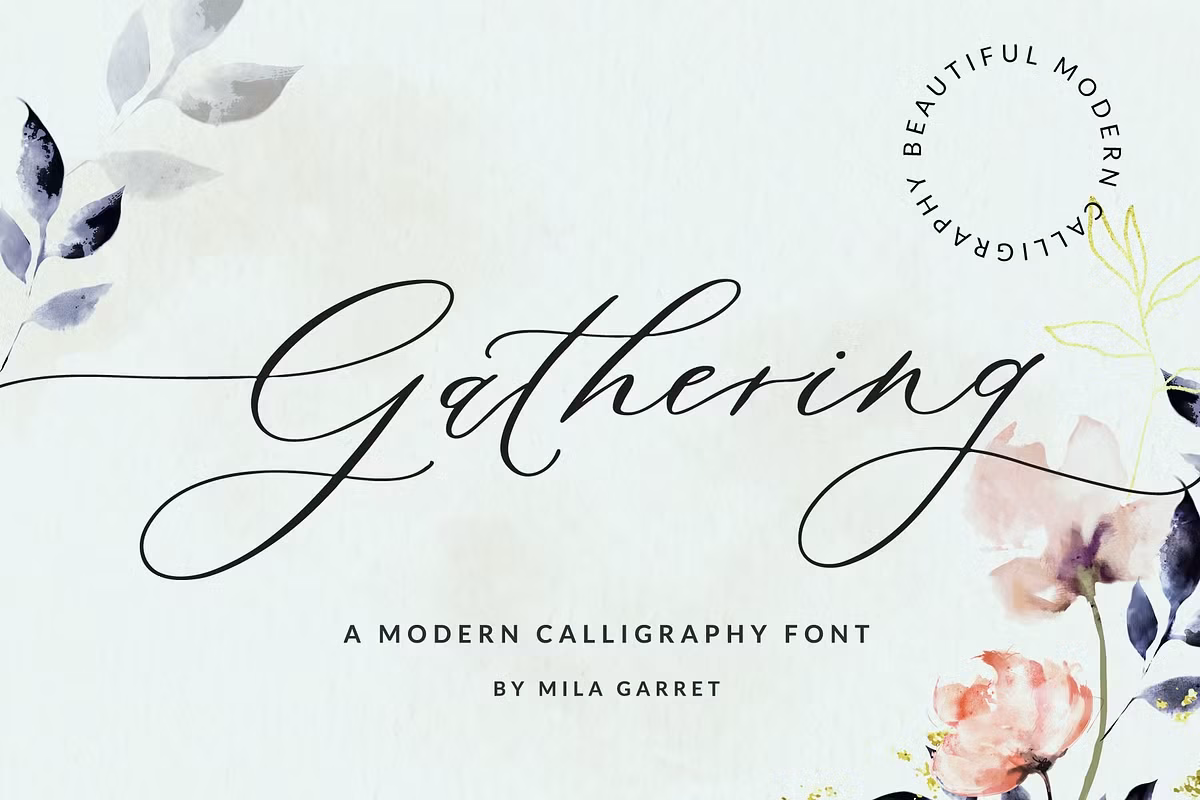
Gathering Calligraphy Wedding Script Free Download
Gathering Calligraphy Wedding Script Free Download is an elegant and romantic script font perfect for wedding invitations, stationery, and other elegant designs. With its flowing curves and graceful strokes, this font captures the timeless beauty of calligraphy, adding a personal and sophisticated touch to your projects. Ideal for any design that needs a luxurious, handwritten feel, Gathering adds charm and warmth to your special moments.